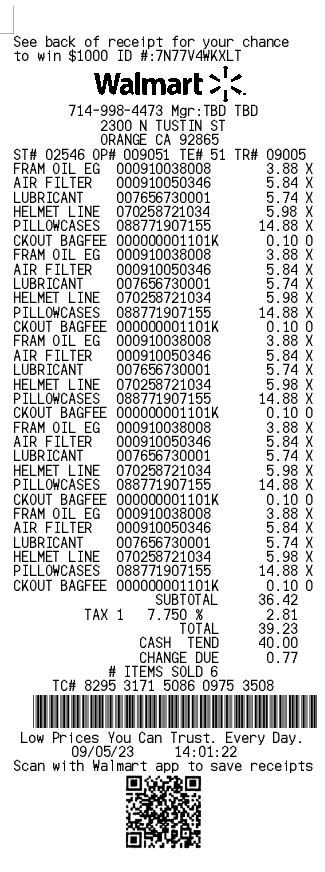
Walmart Receipt Font. Thermal receipt font of markets like cvs, kroger, walmart, bestbuy, safeway, target, smith’s, etc. Printed sample of the font ⤴.
Here you can download yourself a copy of the walmart. Hit the generate button and your logo/image is created and ready to download. With barcode and logo, microsoft word document. You'd probably have to rough it up. Shown on computer screen ⤴. Web the font in the receipt is a monospaced sans serif, so if you pick one that's close you could rough it up a bit to make it feel right: Web enter your text, select a font, choose a font size, and pick your favorite colors. Printed sample of the font ⤴. Thermal receipt font of markets like cvs, kroger, walmart, bestbuy, safeway, target, smith’s, etc. Web receipt font, bill font, invoice font, dot matrix font, barcode label font.
Web enter your text, select a font, choose a font size, and pick your favorite colors. Printed sample of the font ⤴. Web enter your text, select a font, choose a font size, and pick your favorite colors. Web an ordinary font on walmart receipts. With barcode and logo, microsoft word document. Shown on computer screen ⤴. Web the font in the receipt is a monospaced sans serif, so if you pick one that's close you could rough it up a bit to make it feel right: Thermal receipt font of markets like cvs, kroger, walmart, bestbuy, safeway, target, smith’s, etc. You'd probably have to rough it up. Web receipt font, bill font, invoice font, dot matrix font, barcode label font. Here you can download yourself a copy of the walmart.